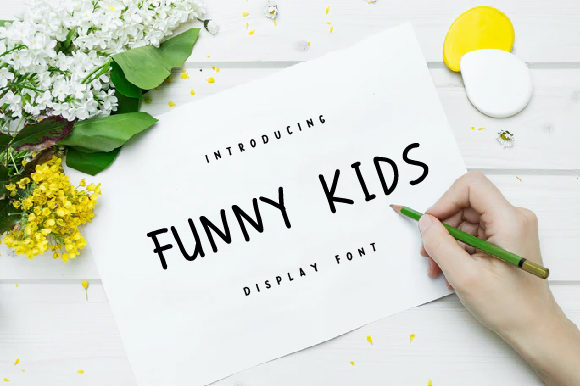
Dive into the realm of whimsical creativity with Funny Kids Font, the enchanting script font crafted by Ciriative, designed to ignite your imagination and add a touch of playfulness to your digital creations. Step into a world where letters dance with a carefree spirit, where each stroke tells a story of joy and adventure.
Funny Kids Font is not just a collection of characters; it's an invitation to unleash your inner child and let your creativity run wild. With its charmingly casual handwritten style, this font is perfect for adding a personal touch to any crafting project.
Imagine crafting greeting cards that come alive with heartfelt messages, personalized invitations that spark curiosity and excitement, or social media posts that exude a playful charm. Funny Kids Font is the perfect choice for creating designs that resonate with audiences of all ages, leaving a lasting impression that sparks smiles and ignites conversations.
But Funny Kids Font is not just limited to personal projects. Its versatility extends to the world of modern apps, where it can serve as the perfect font for user interfaces, logos, and promotional materials. Its friendly and approachable nature makes it an ideal choice for apps aimed at children or those seeking a touch of whimsy in their digital experiences.
With Funny Kids Font, you'll find endless possibilities to express yourself creatively and connect with your audience in a meaningful way. So, let your imagination soar, embrace the playful spirit of this remarkable font, and create designs that bring joy and laughter to the world.